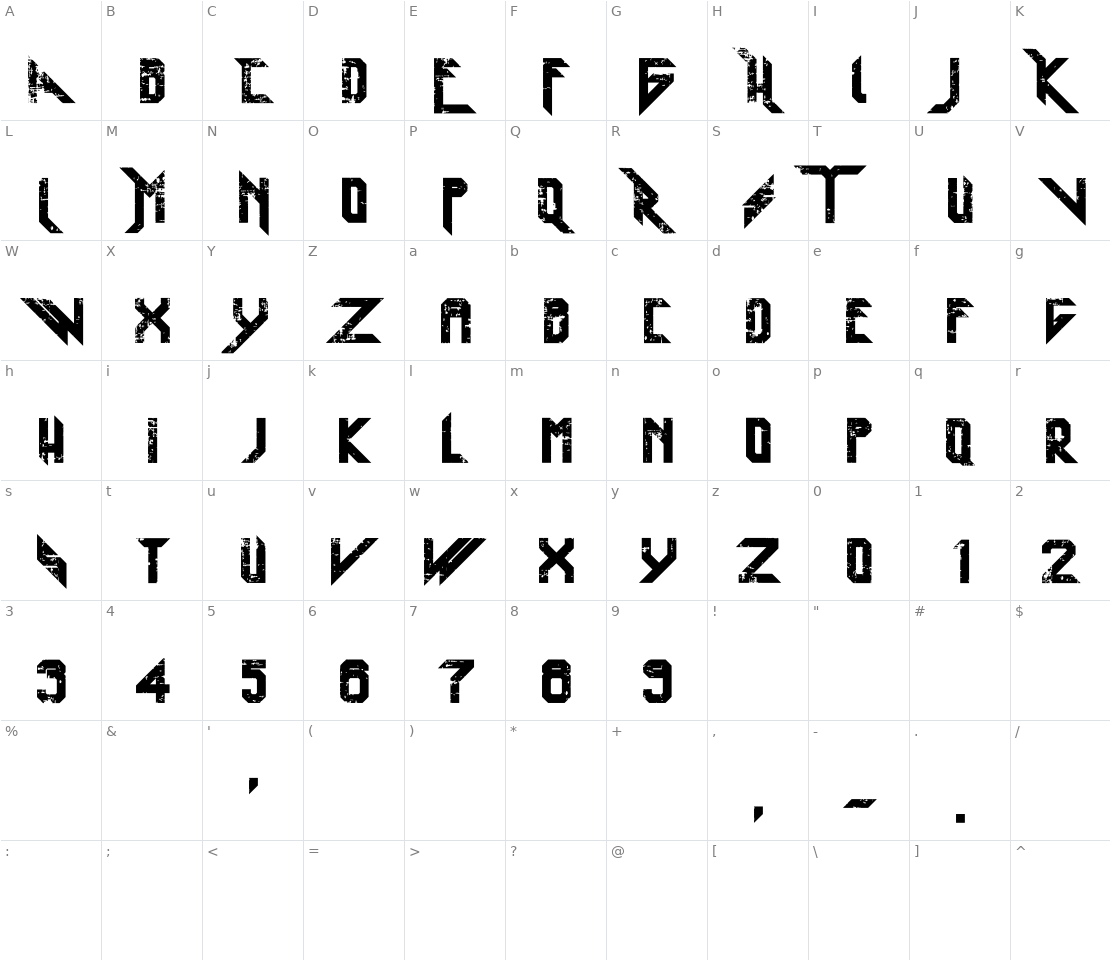
Heavy Metal Blight
Heavy Metal Blight is a battered, aggressive display face from imagex with angular letterforms that look corroded and beaten up, like signage left to rust in an industrial wasteland. The heavy strokes and grunge texture give it real menace, making it a natural fit for band logos, concert posters, and dark-themed editorial work where you want type that feels physically damaged. Best kept to headlines and short text where the distressed detail can do its thing.